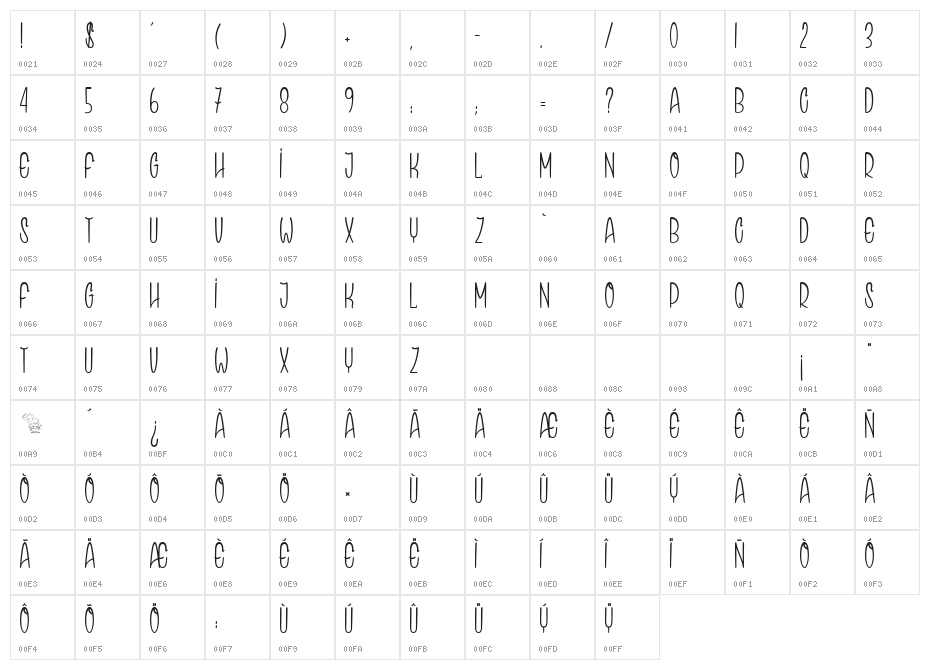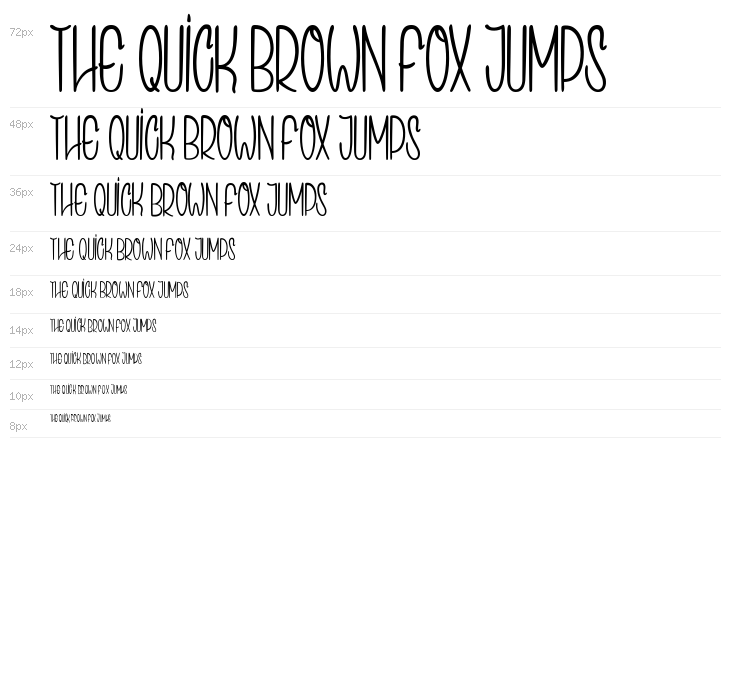
Speak Easy Font
Speak Easy Description
This font features a playful and whimsical design with tall, narrow letters that have a hand-drawn appearance. The characters exhibit a unique blend of elegance and casual flair, making them stand out with their elongated forms and slightly irregular lines. The uppercase and lowercase letters maintain a consistent style, with smooth curves and subtle variations that add to the font's charm. The numerals and special characters are crafted to match the overall aesthetic, ensuring a cohesive look across all text. This font is ideal for projects that require a touch of personality and creativity.
Use CaseHeadlines, Logos, Invitations
Proposed ProjectsGreat for invitations, greeting cards, posters, and branding projects that need a creative and personal touch.